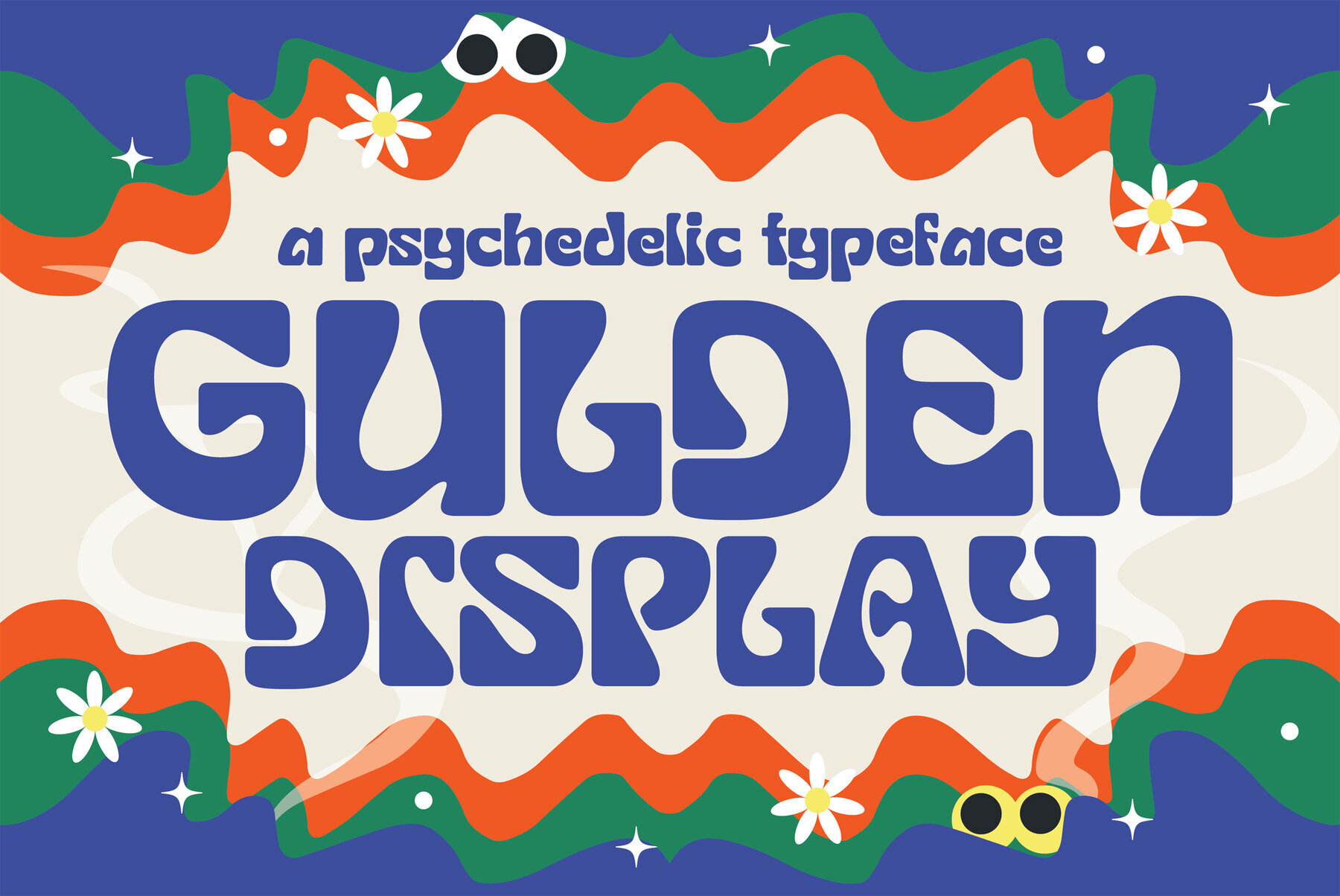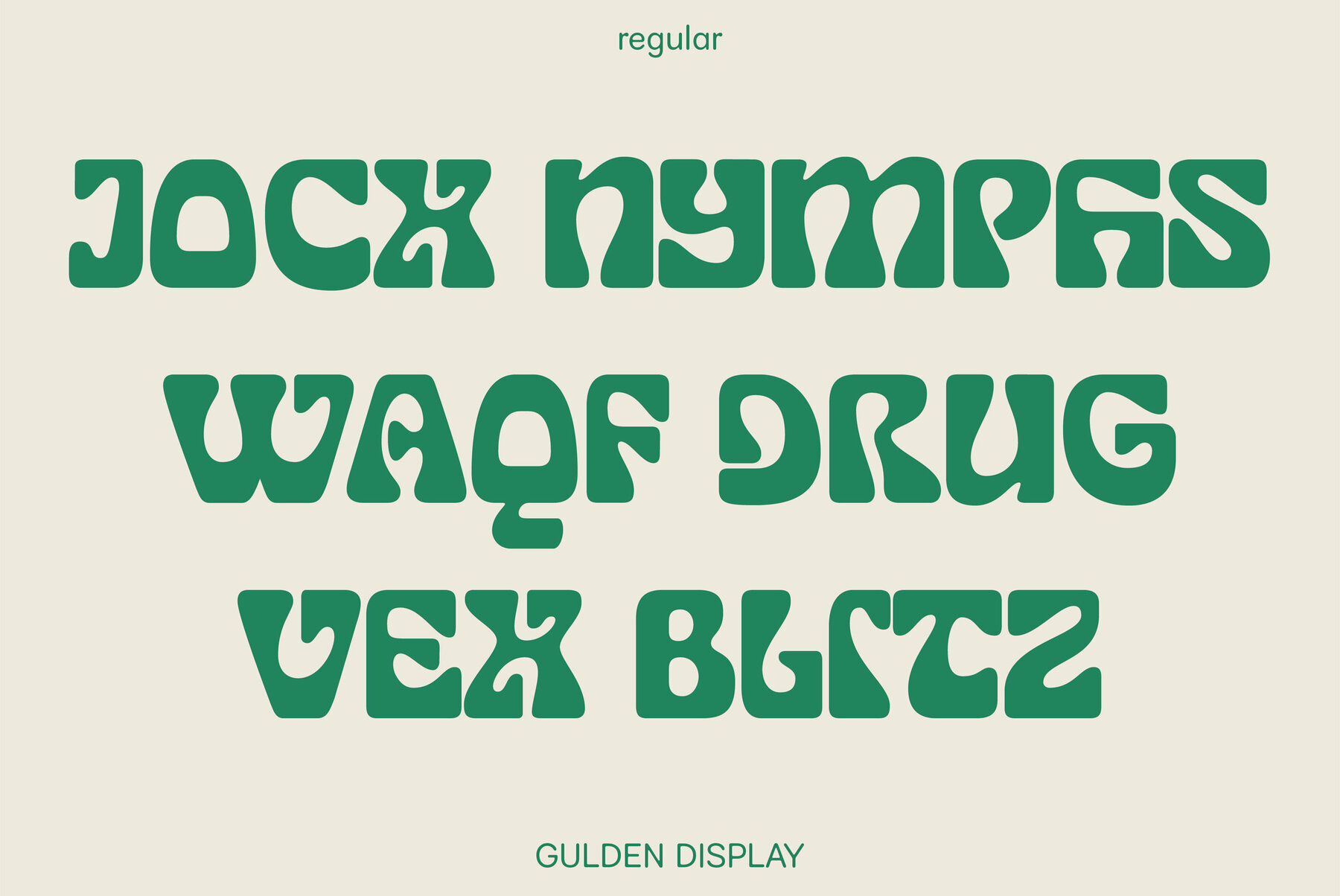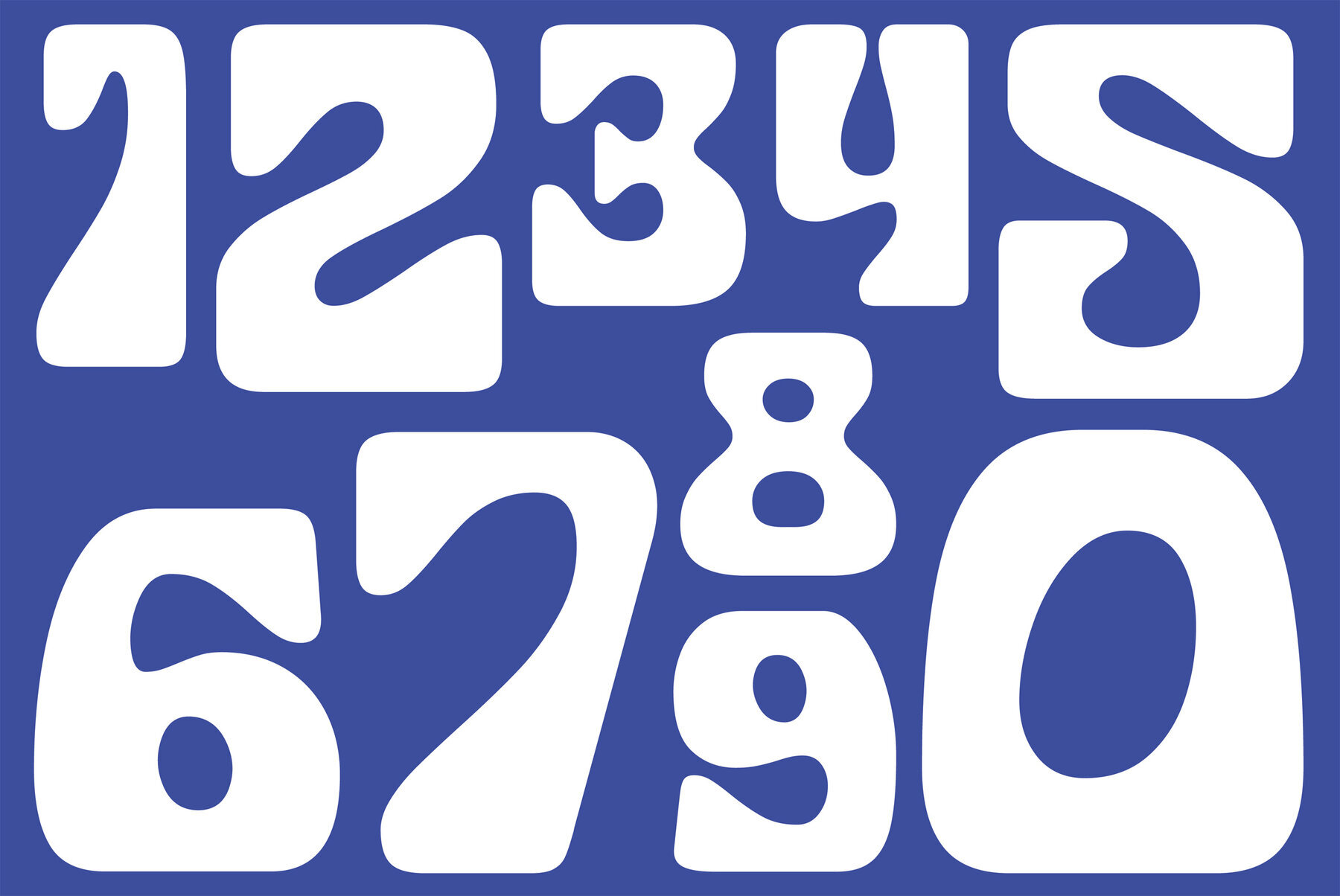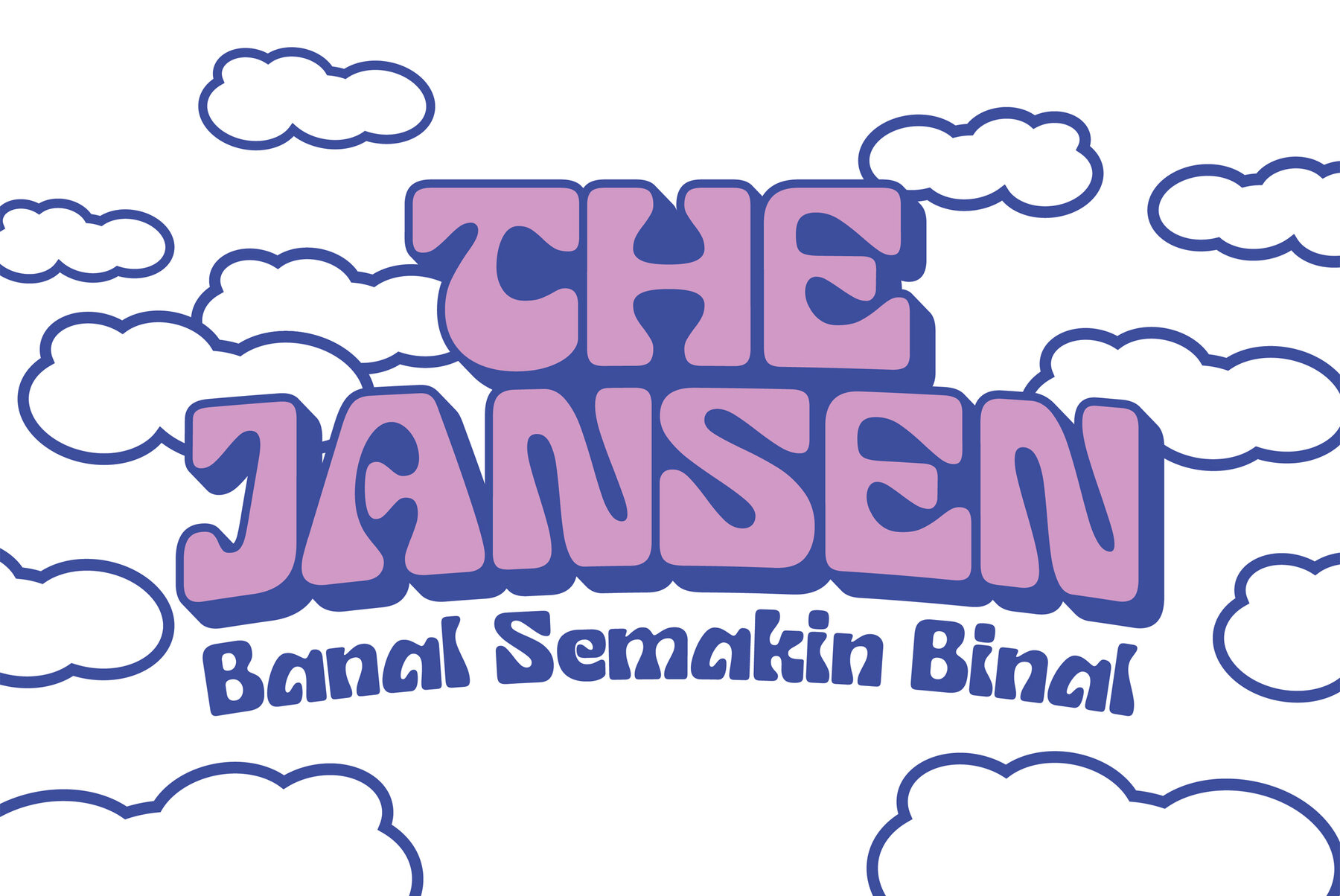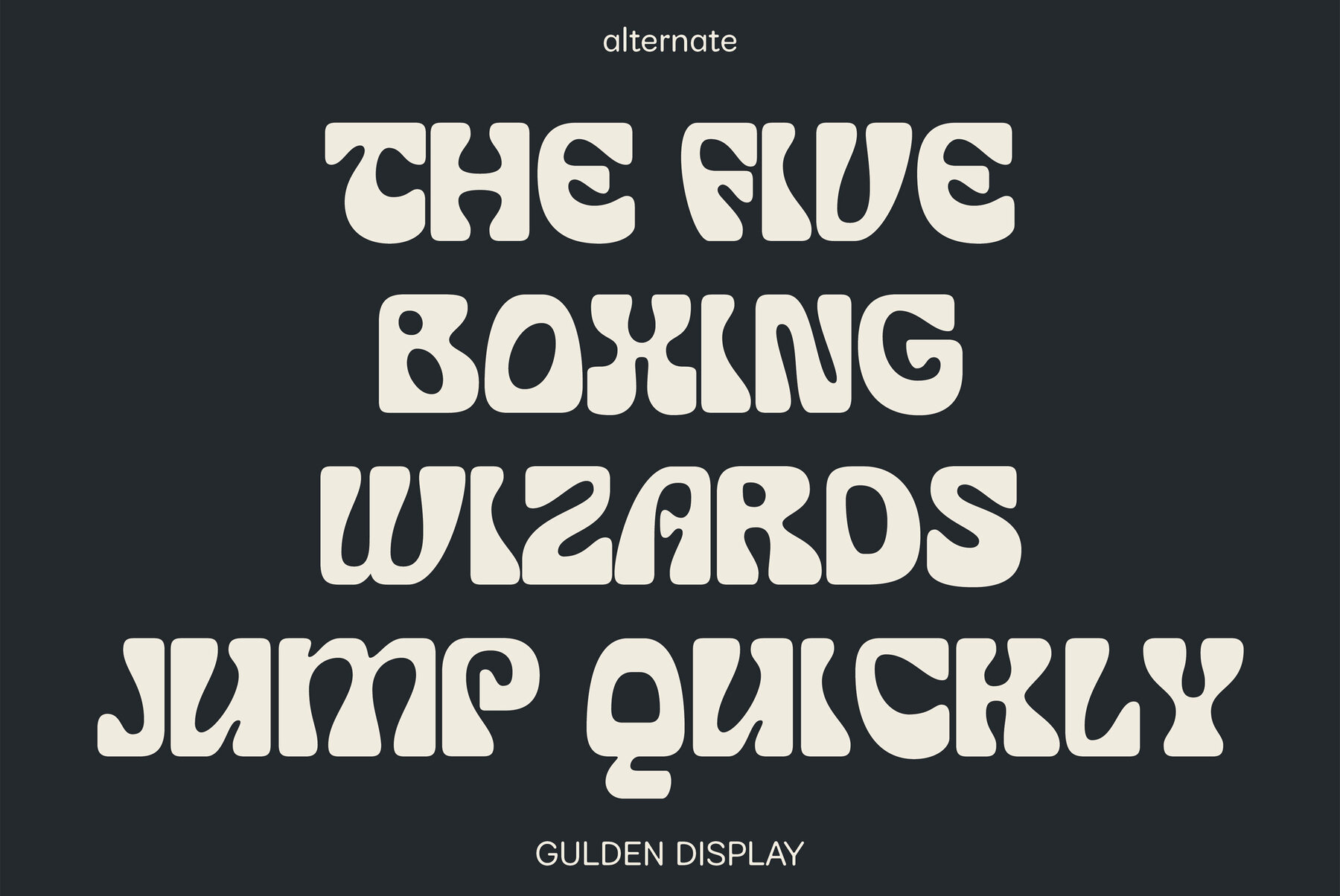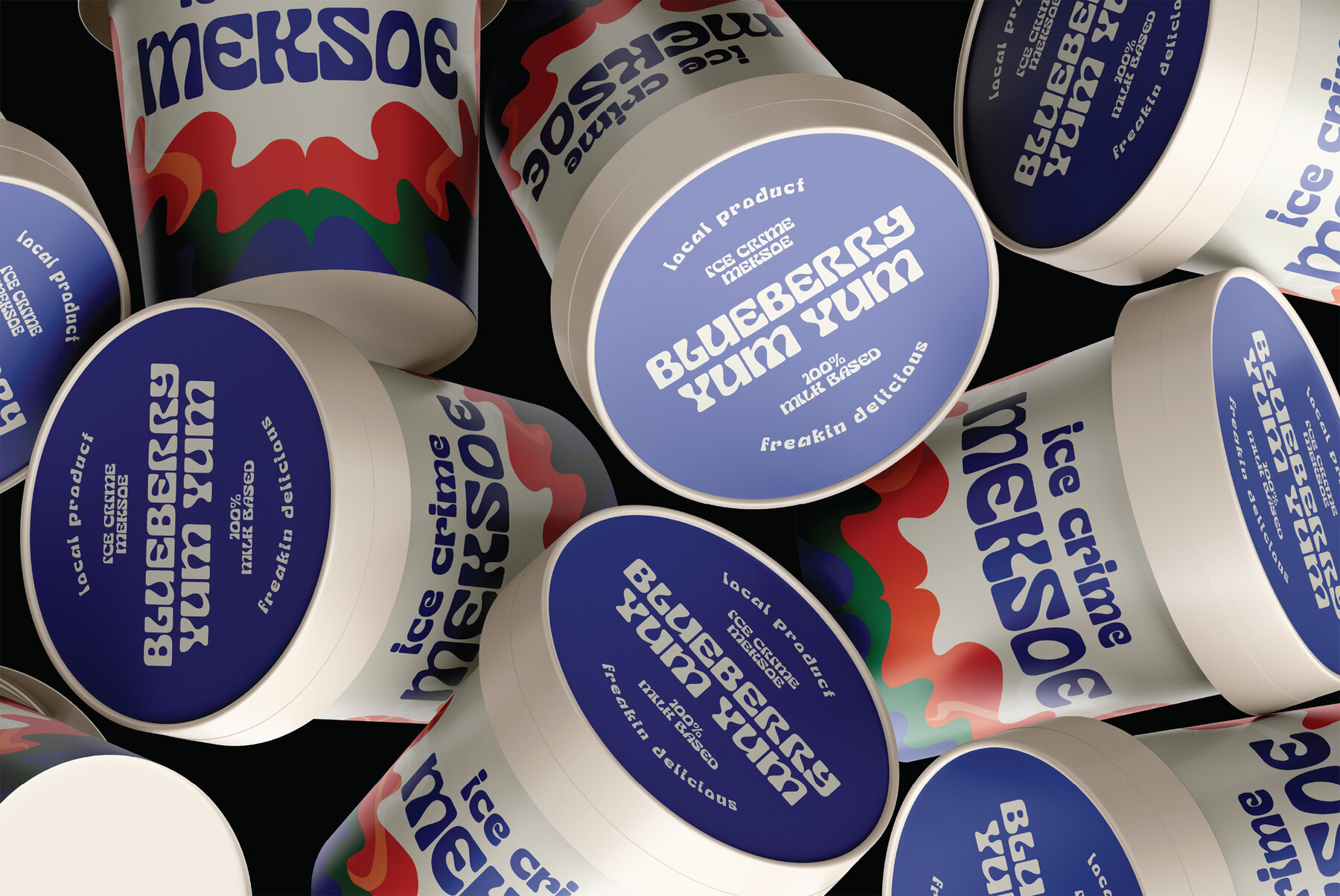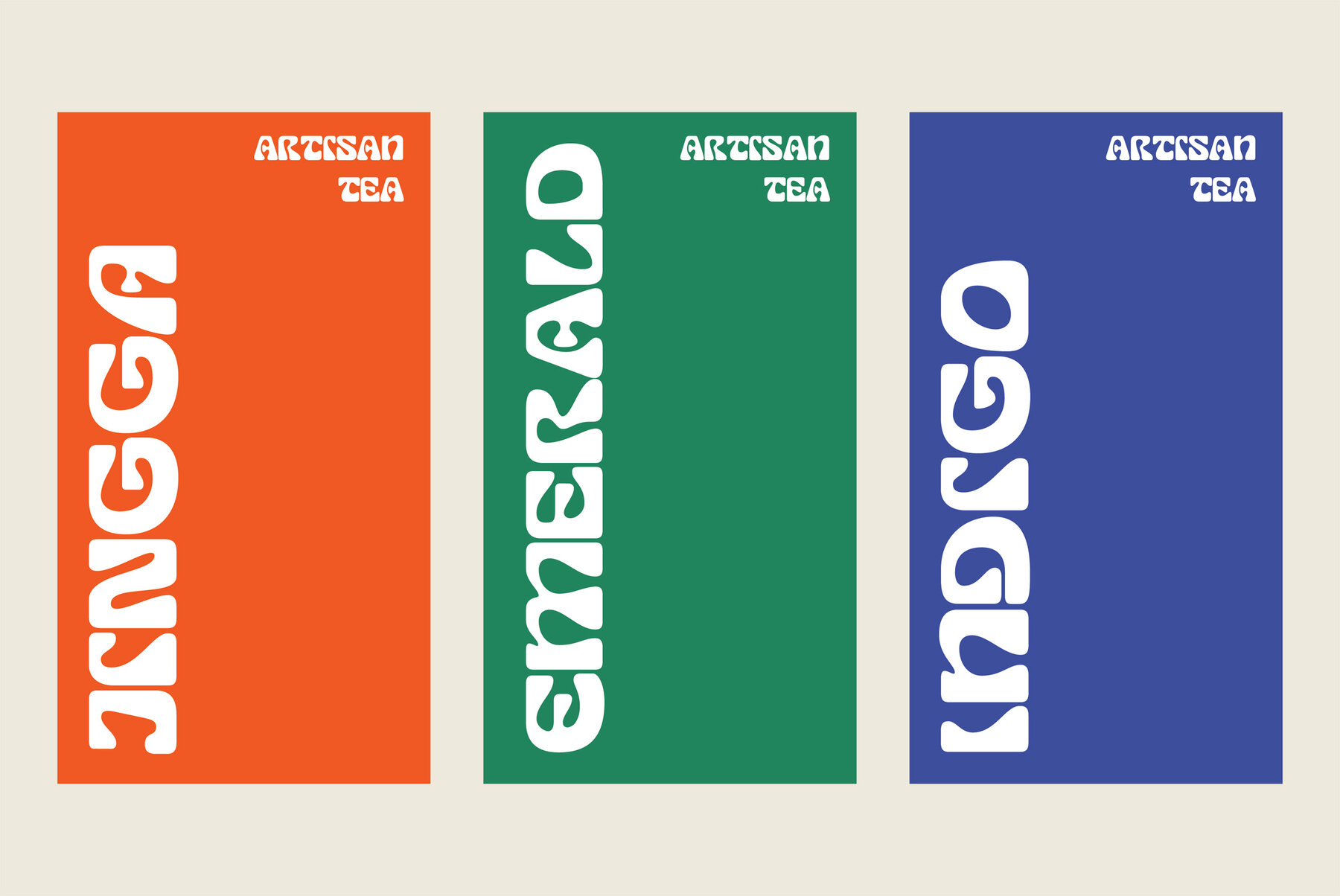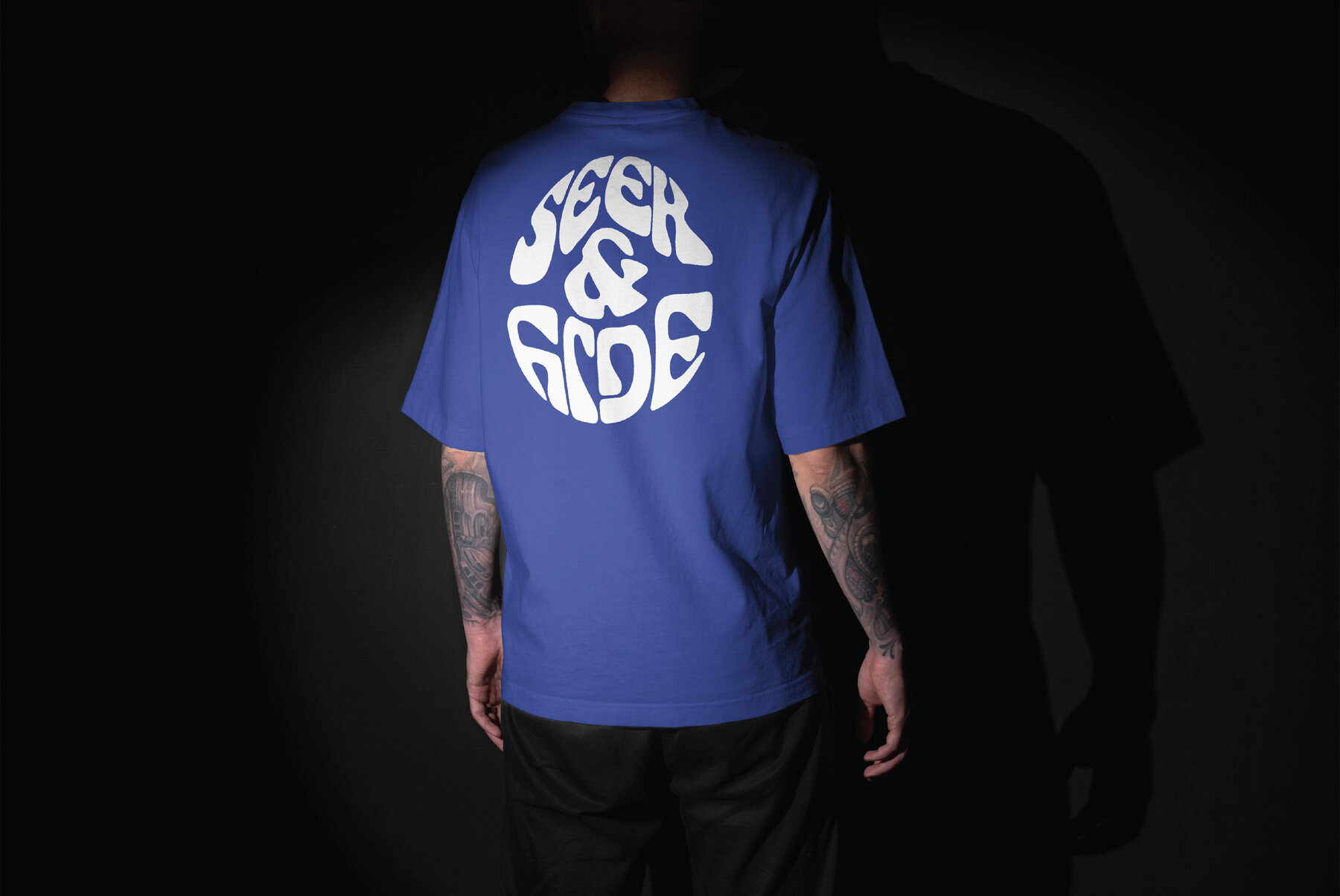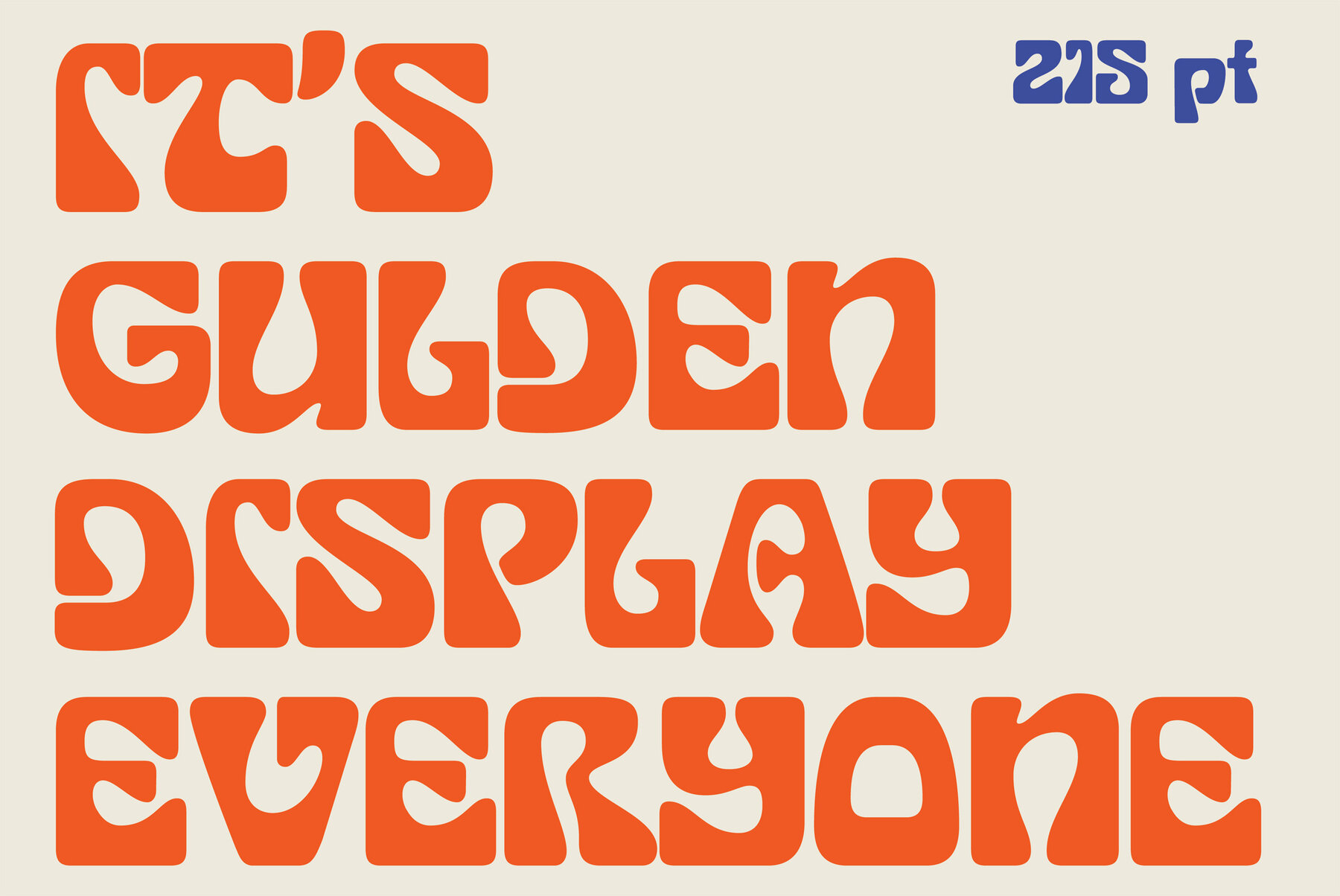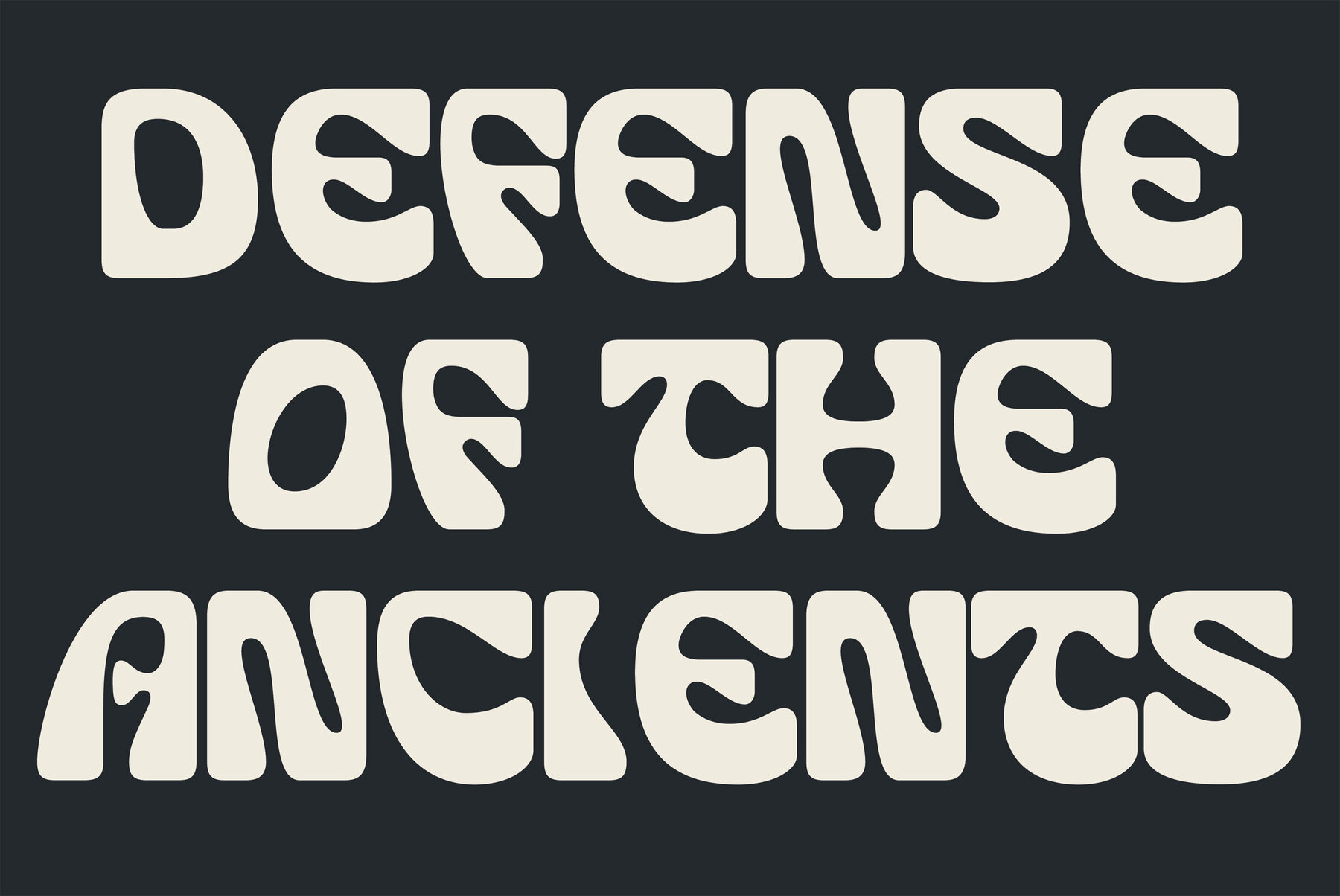
Gulden Font
Gulden Display - Introducing our new psychedelic display font, perfect for adding some trippy vibes to your designs. This bold and eye-catching font features swirling, abstract shapes and patterns that seem to move and shift right before your eyes. With its unique, otherworldly aesthetic, this font is perfect for album covers, concert posters, and any project that wants to make a bold, unconventional statement. Whether you're a graphic designer, artist, or just looking to add some visual interest to your personal projects, this font is sure to make an impact. Give it a try and let your creativity take flight!
- Narrow and Wide Versions
- Number
- Punctuation